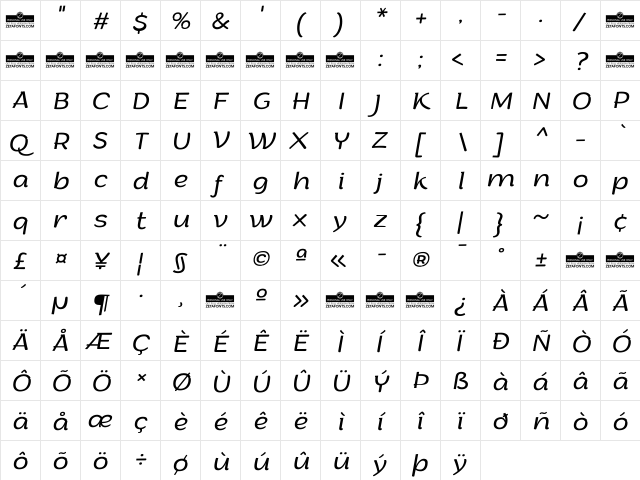
Arturo Trial Light Italic Font Preview
| Style | Light Italic |
| Foundry | Zetafonts |
| Designer | Francesco Canovaro |
Design Context for Arturo Trial Typeface
Arturo Trial takes a measured approach to typography — its balanced proportions and neutral character make it a reliable workhorse for both digital and print work. The slanted form adds forward momentum and visual energy. The delicate stroke weight brings airiness and refinement to layouts.